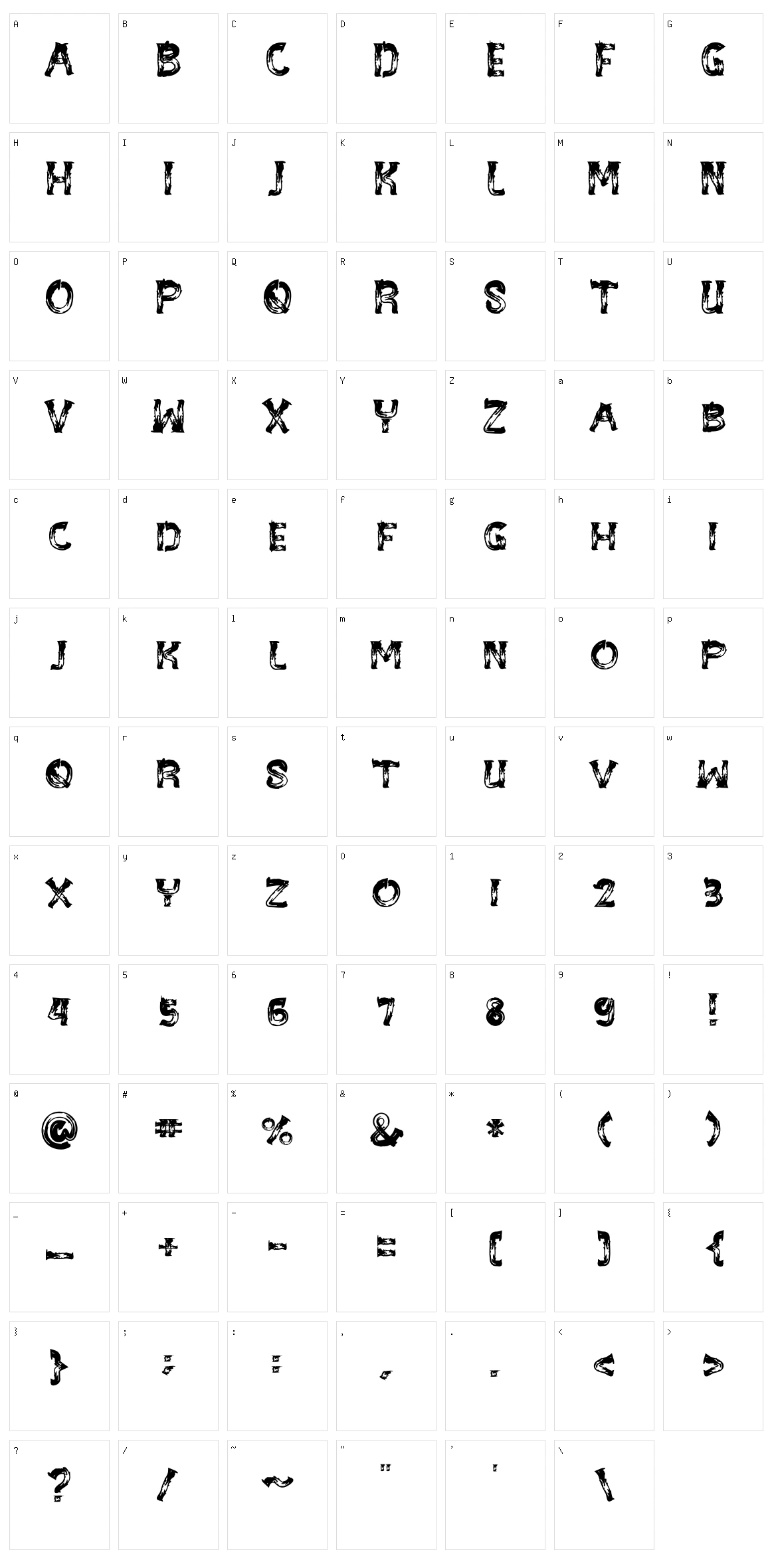
BE - WILD is strong brush fonts made with natural touch, this font is the best
choice for all your design projects. Included character in all caps and also
support multilingual, fully accessible fonts without additional design software.
Would be perfect for posters, packaging, advertising, headlines, branding, signage
and anything where you want that urban look and feel.